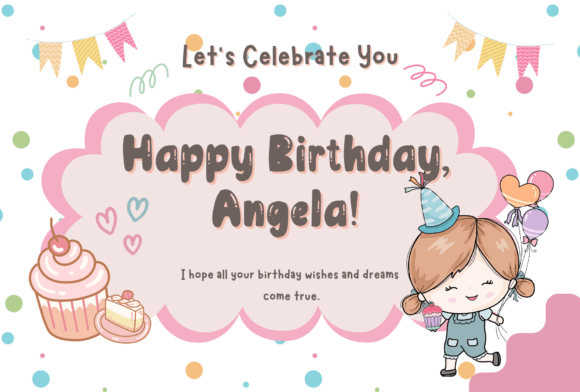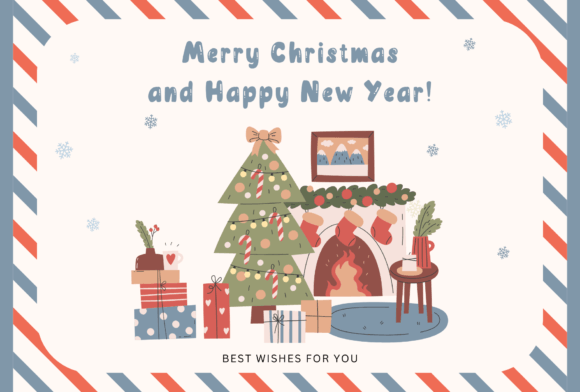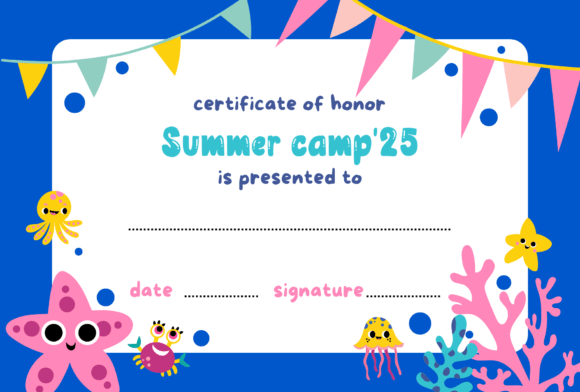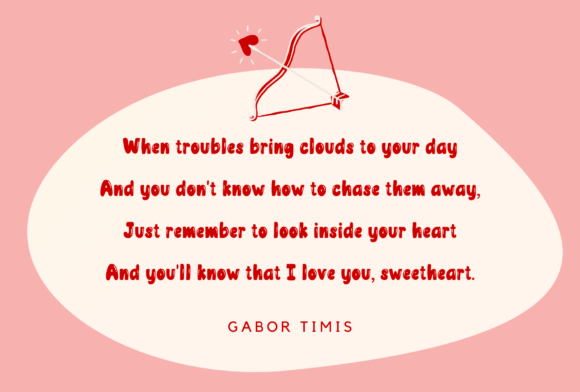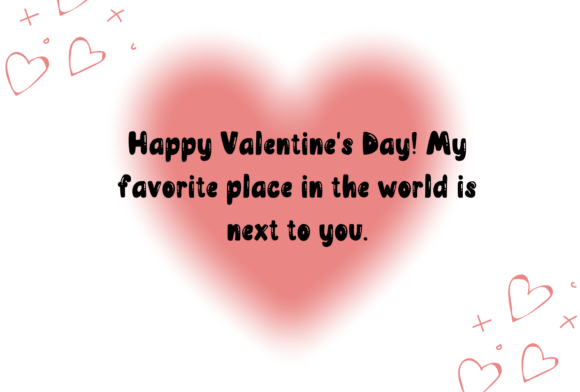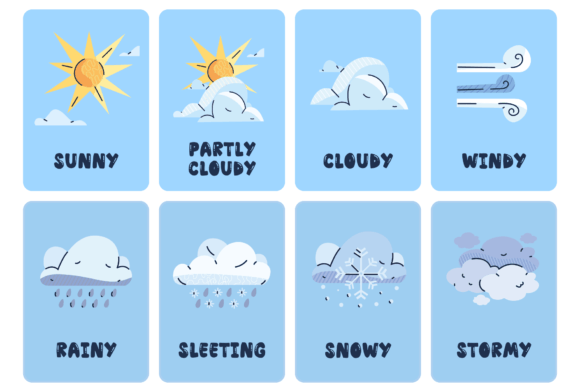
When Words Become Works of Art: Discovering the Chubby Font
Who hasn’t found themselves struggling to put their thoughts into words, only to be inspired by a single phrase or sentence that perfectly captures the essence of their creative vision? For designers and artists, this moment is a fleeting glimpse of genius that can make all the difference in bringing their ideas to life. It’s in these moments that we search for the perfect font to complement our message, and that’s where the Chubby Font comes in – a charming, whimsical choice that adds a touch of quaint charm to any project.
The Chubby Font is more than just a font; it’s a personality that shines through in every application, from heartfelt notes to personalized merchandise. Its playful appeal makes it a valuable asset for designers, as it lends a unique touch to an array of products, from t-shirts to planners, mugs, and more.
Key Features of Chubby Font
- Font Family: Chubby Font is a unique, hand-drawn font family that offers a playful and whimsical feel to any design.
- Character Set: The font family includes a wide range of characters, including uppercase and lowercase letters, numbers, punctuation marks, and special characters.
- Unique Characteristics: The font’s distinctive, rounded shapes and irregular lines give it a one-of-a-kind look that is perfect for adding a touch of personality to designs.
Chubby Font Review
As a designer, I was excited to try out the Chubby Font, and overall, I have mixed feelings about it.
- Unique and playful style: Chubby Font is perfect for adding a touch of whimsy to your designs.
- Wide range of weights: The font comes in various weights, making it suitable for a wide range of applications.
- Great for titles and headings: Chubby Font is a great choice for titles and headings due to its bold and eye-catching nature.
- Limited legibility: In smaller font sizes, the letters can become difficult to read, which may limit its use in body text.
- Not suitable for formal designs: Due to its playful style, Chubby Font may not be the best choice for formal or professional designs.
While Chubby Font is a fun and unique addition to any design, its limitations may make it less versatile than other fonts. However, if you’re looking to add a playful touch to your designs, it’s definitely worth considering.
Getting the Most Out of Chubby Font
For the best results, use Chubby Font in bold or italic styles to add emphasis and visual interest. Experiment with different font sizes to create a balanced and readable design. You can also pair Chubby Font with other fonts to create a unique and eye-catching look.
Chubby Font is perfect for:
- Creating playful and whimsical designs
- Adding a touch of personality to your branding
- Designing invitations and event materials
- Creating social media graphics and ads
Alternatives to Chubby Font
Circular Std
Circular Std is a sans-serif font designed by Tobias Frere-Jones. It’s perfect for body text and headings where you need a friendly, approachable feel. Circular Std has a more rounded shape compared to Chubby Font, which makes it ideal for digital interfaces and branding.
Comparison: Chubby Font has a more chunky and rounded feel, while Circular Std is more refined and modern.
Lato is a sans-serif font designed by Łukasz Dziedzic. It’s a popular choice for body text and headings where you need a clean and elegant look. Lato has a more geometric shape compared to Chubby Font, which makes it ideal for corporate branding and editorial design.
Comparison: Chubby Font has a more rounded and playful feel, while Lato is more modern and sophisticated.